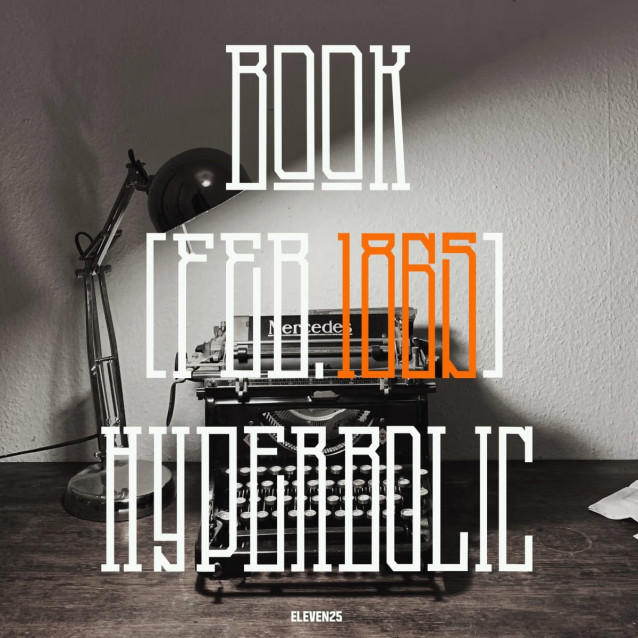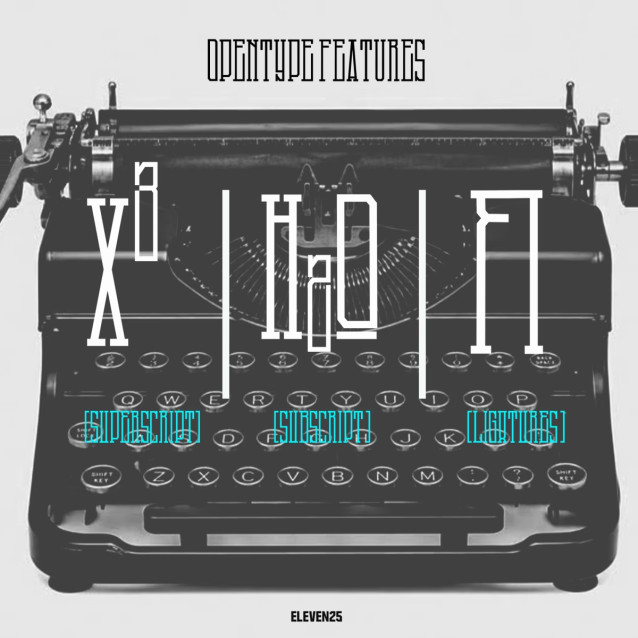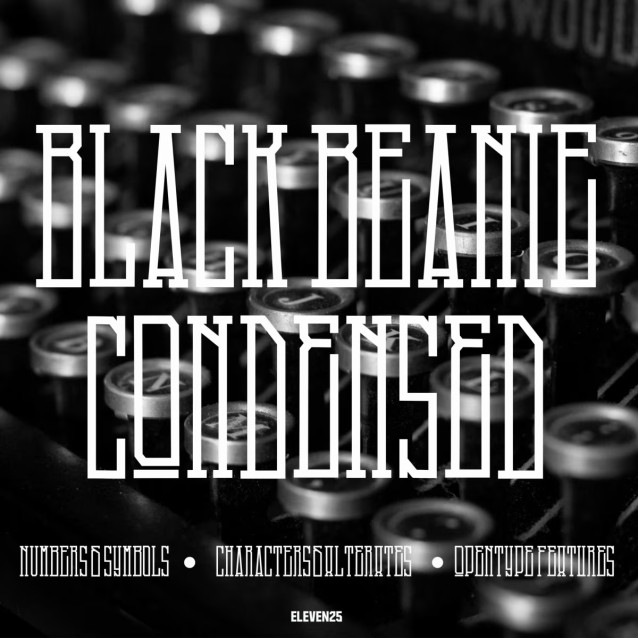
Introducing Black Beanie Condensed developed with exaggerated height & slim width , a book weight slab display font
BLACK BEANIE CONDENSED FONT
| Classification: | Display Fonts, Slab Serif Fonts |